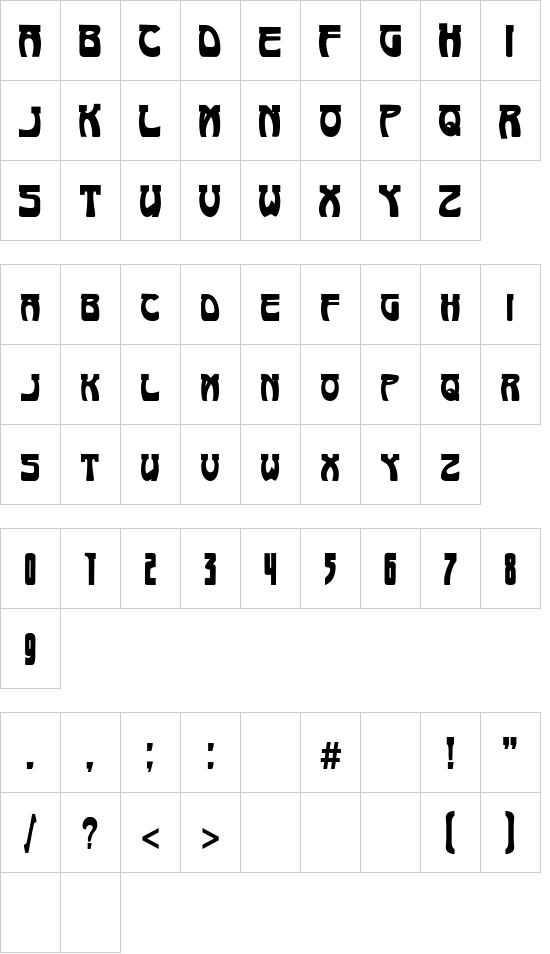
Art-Nouveau 1895 is a heavy, compact retro face with flowing Art Nouveau lines and turn-of-the-century elegance. The letters are dense yet graceful, their organic curves recalling the ornamental posters of the era. Its mood is ornate and period-rich, decorative and refined at once.